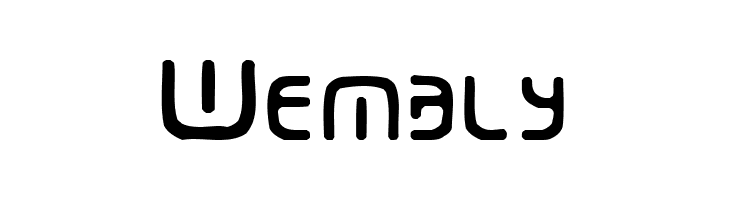
KiraLynn Font
- Font: KiraLynn
( Fonts by Scott Dieznyik - Kejak (formerly Cheops) )
A futuristic, geometric font with rounded edges and a bold, stencil-like appearance.